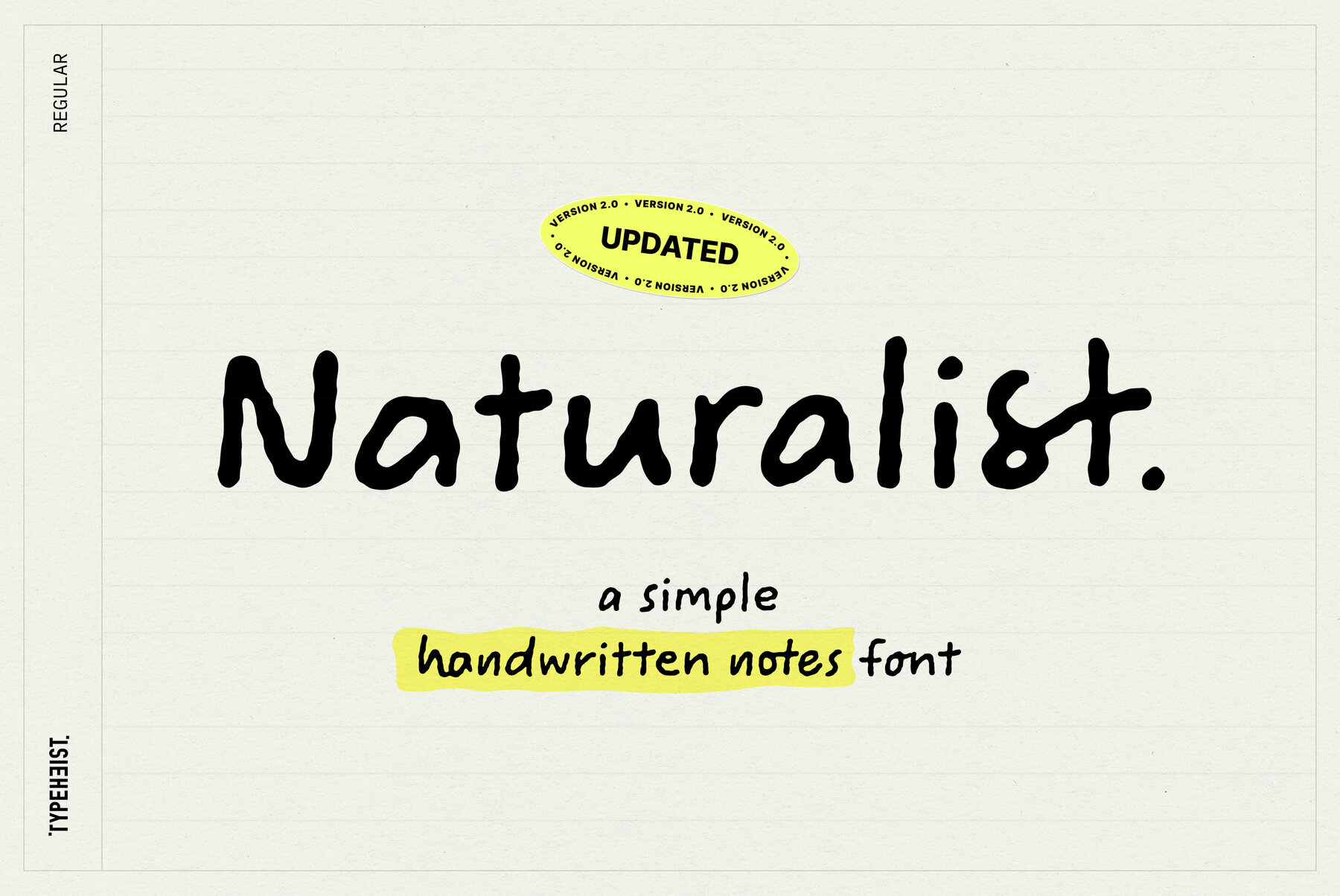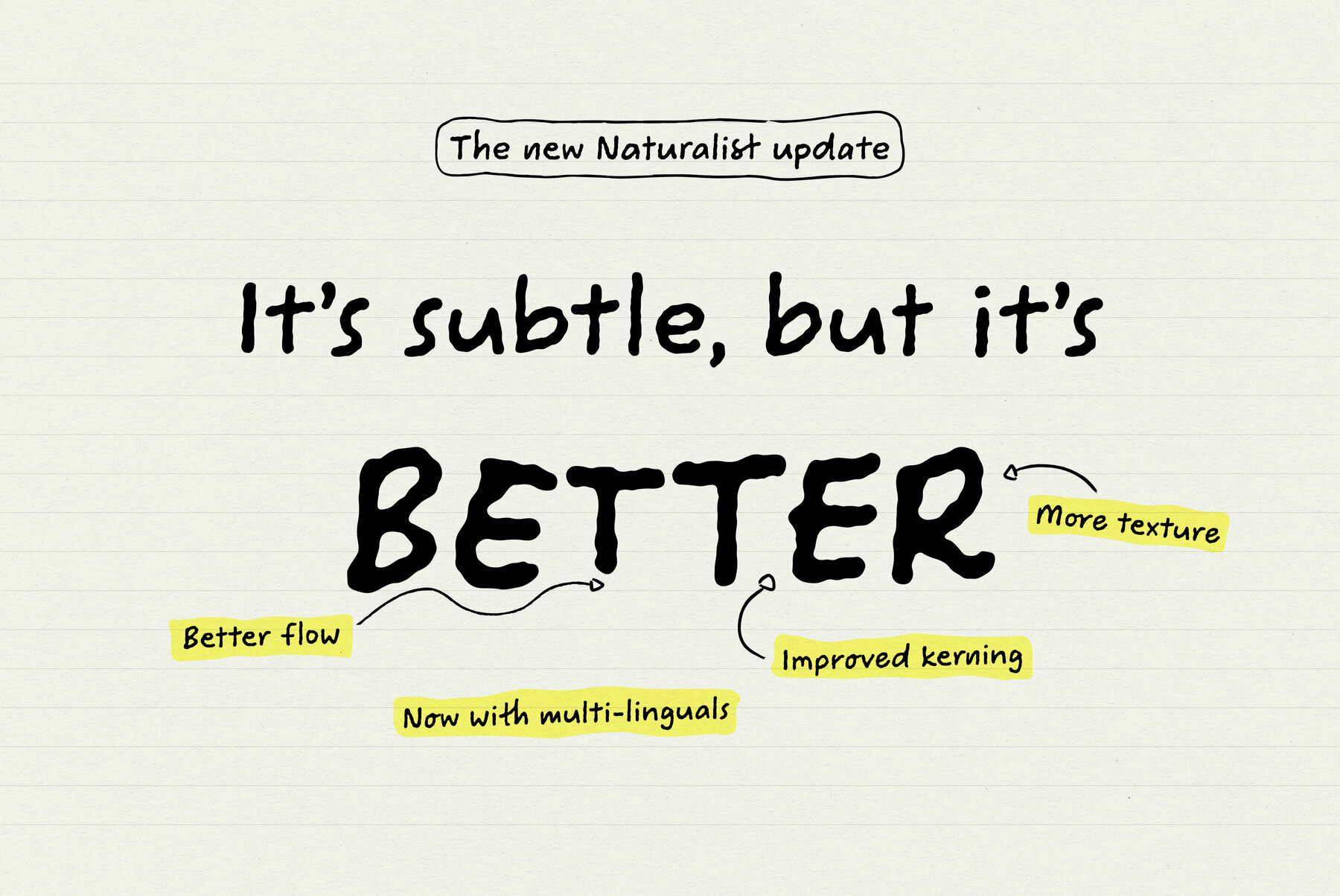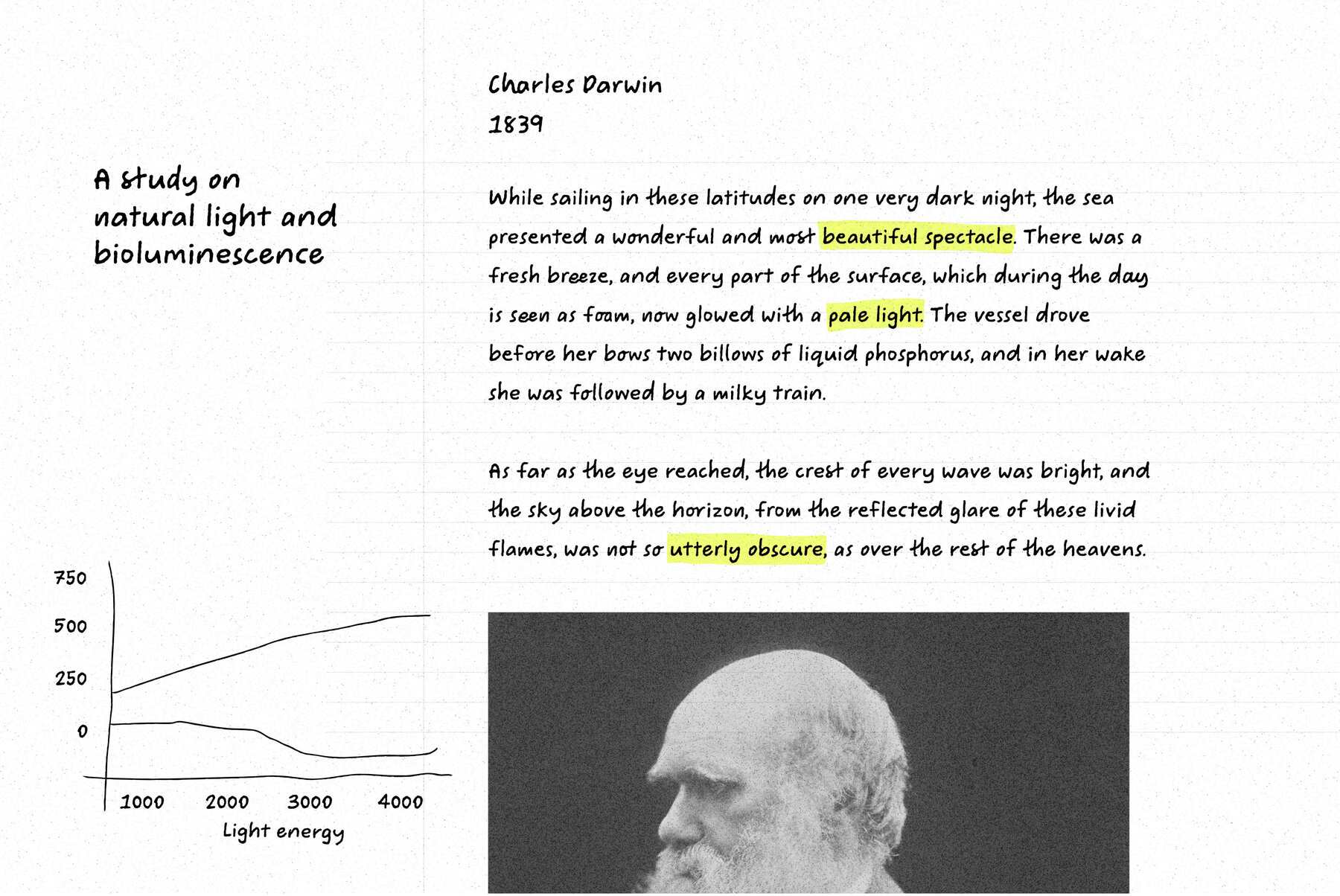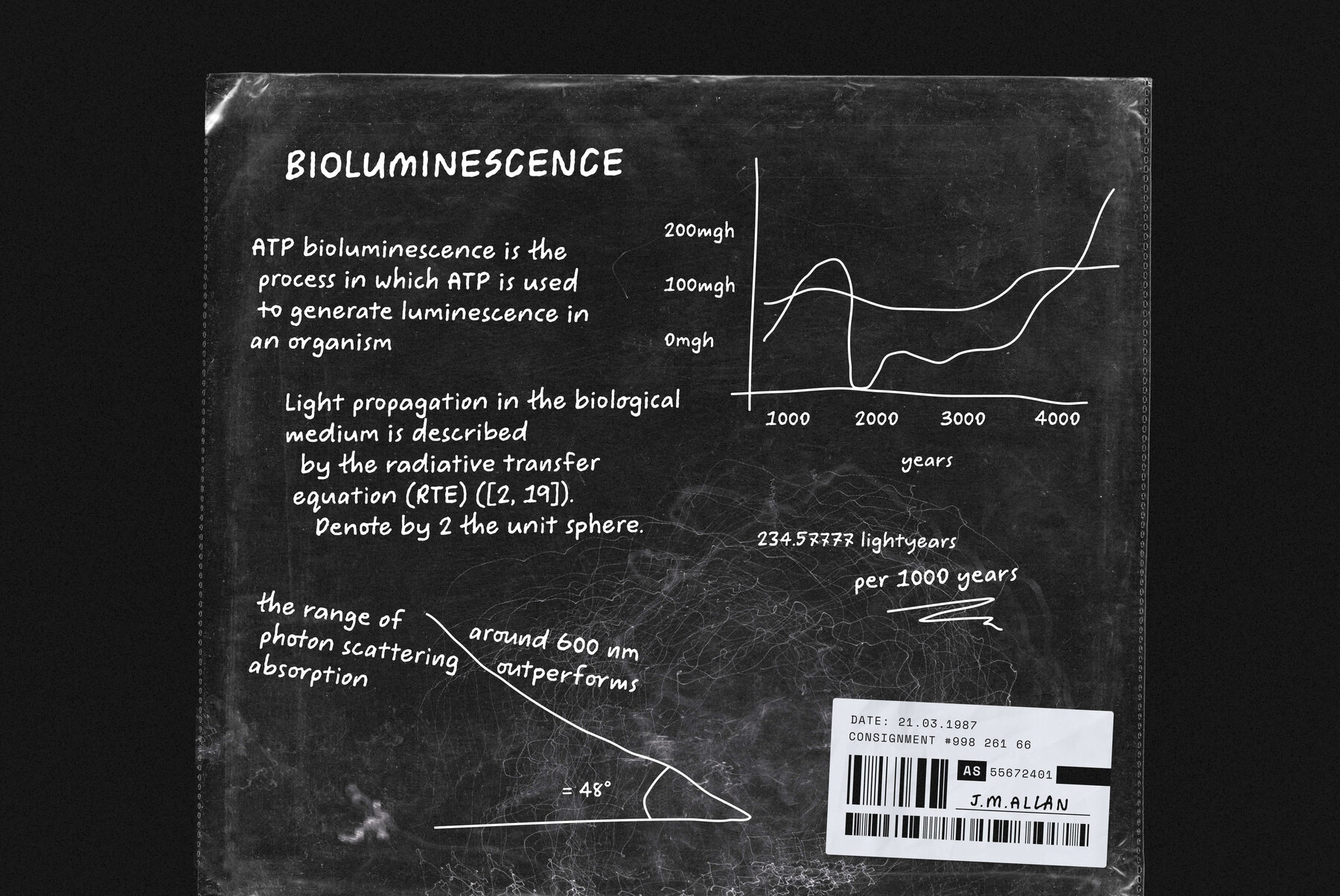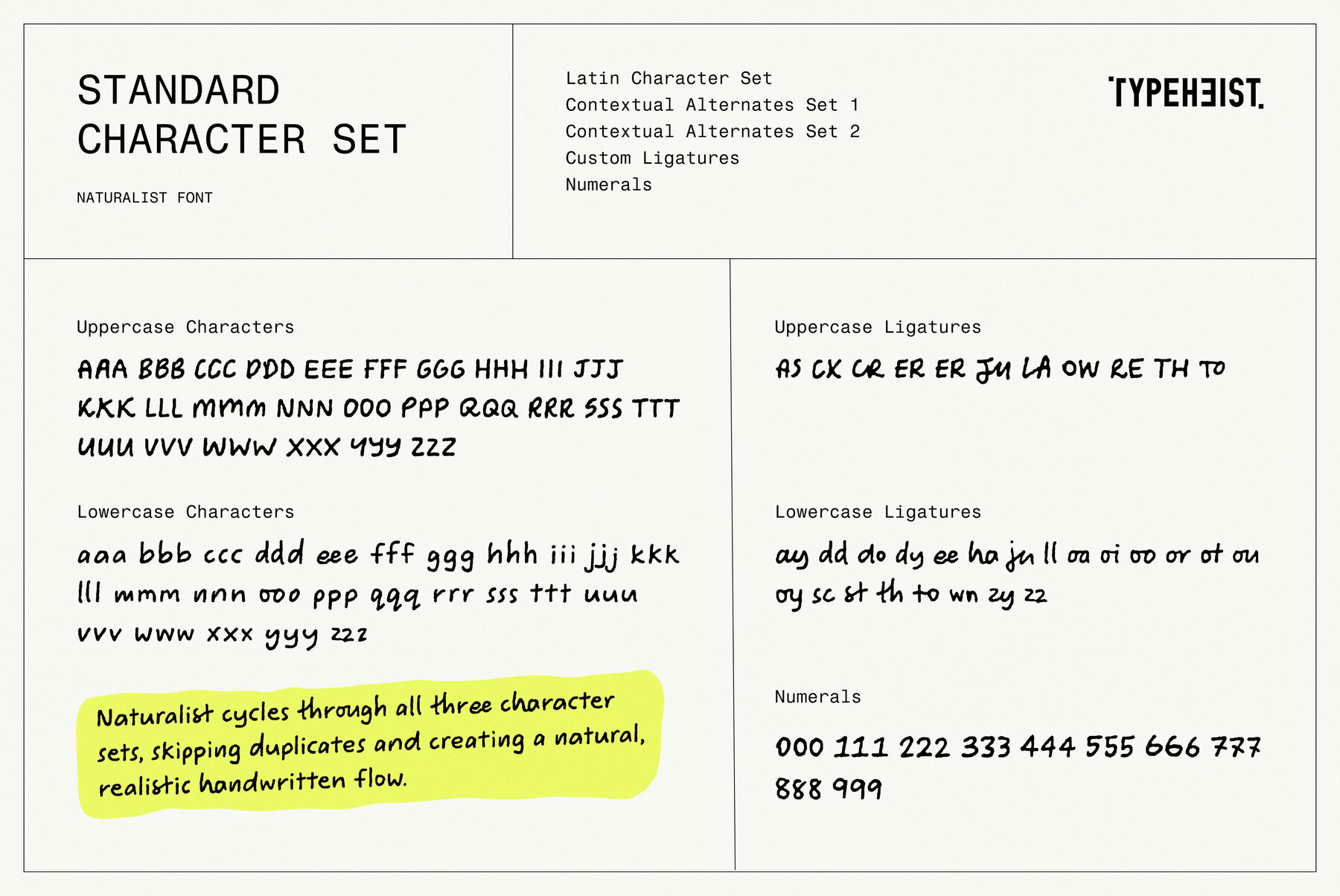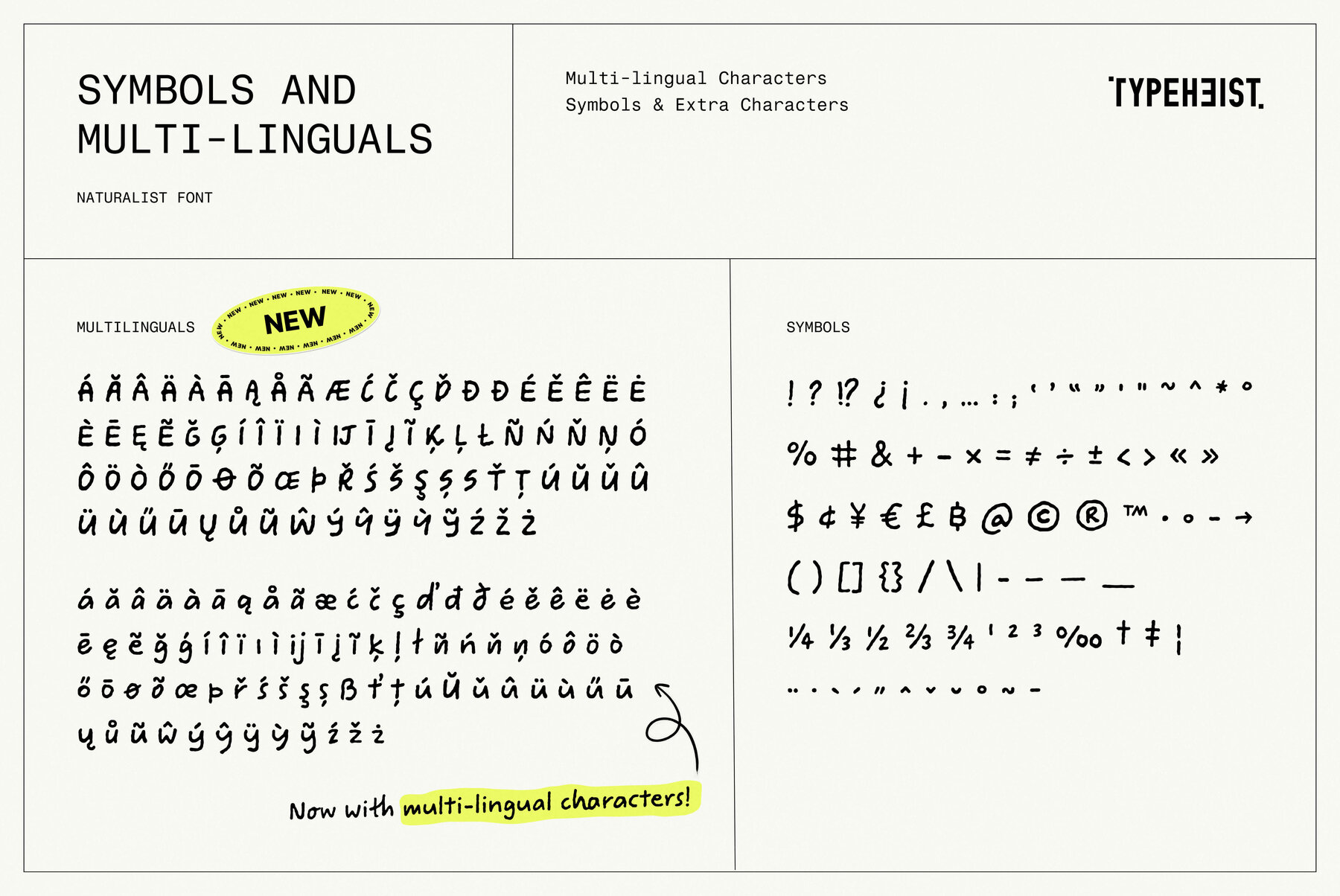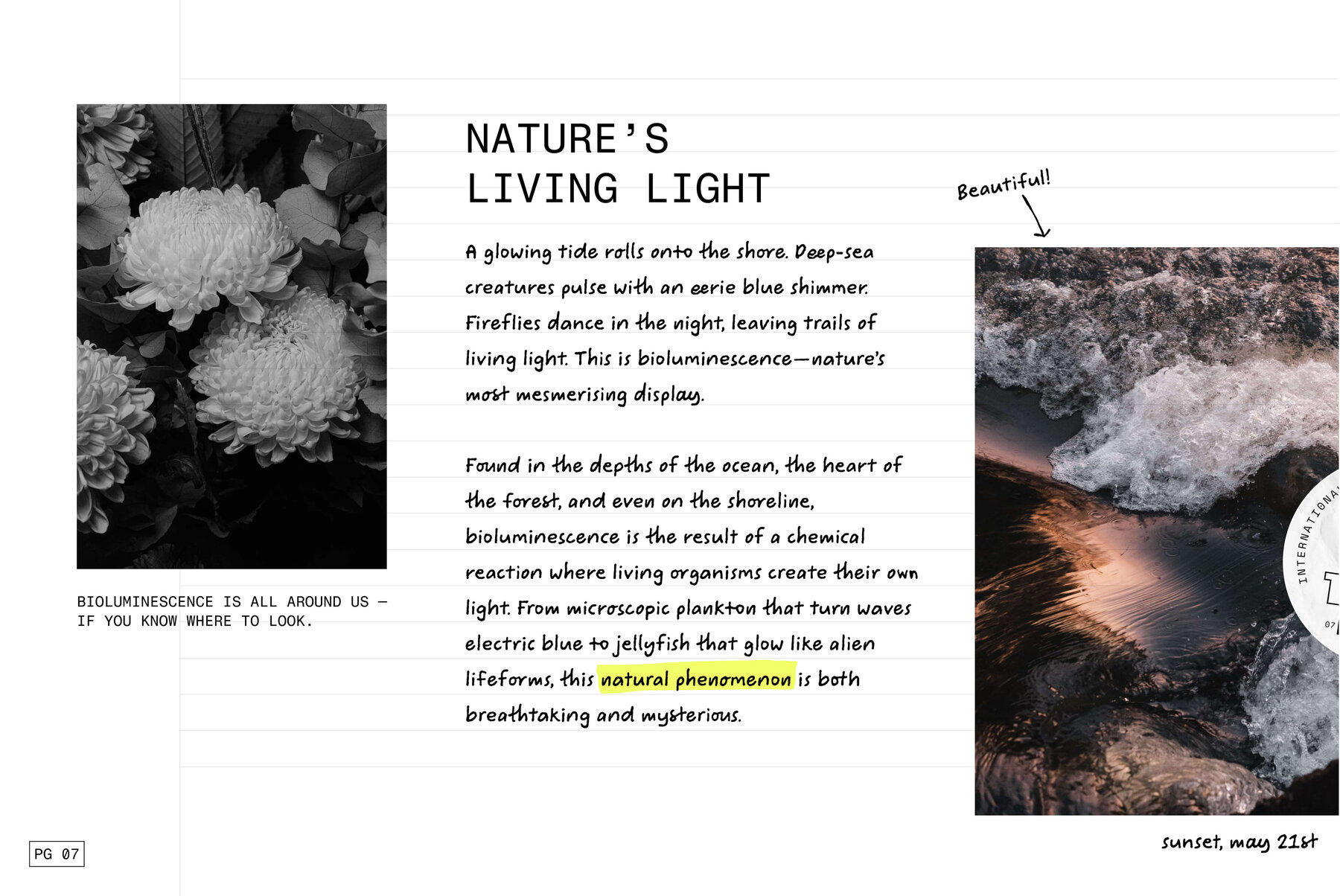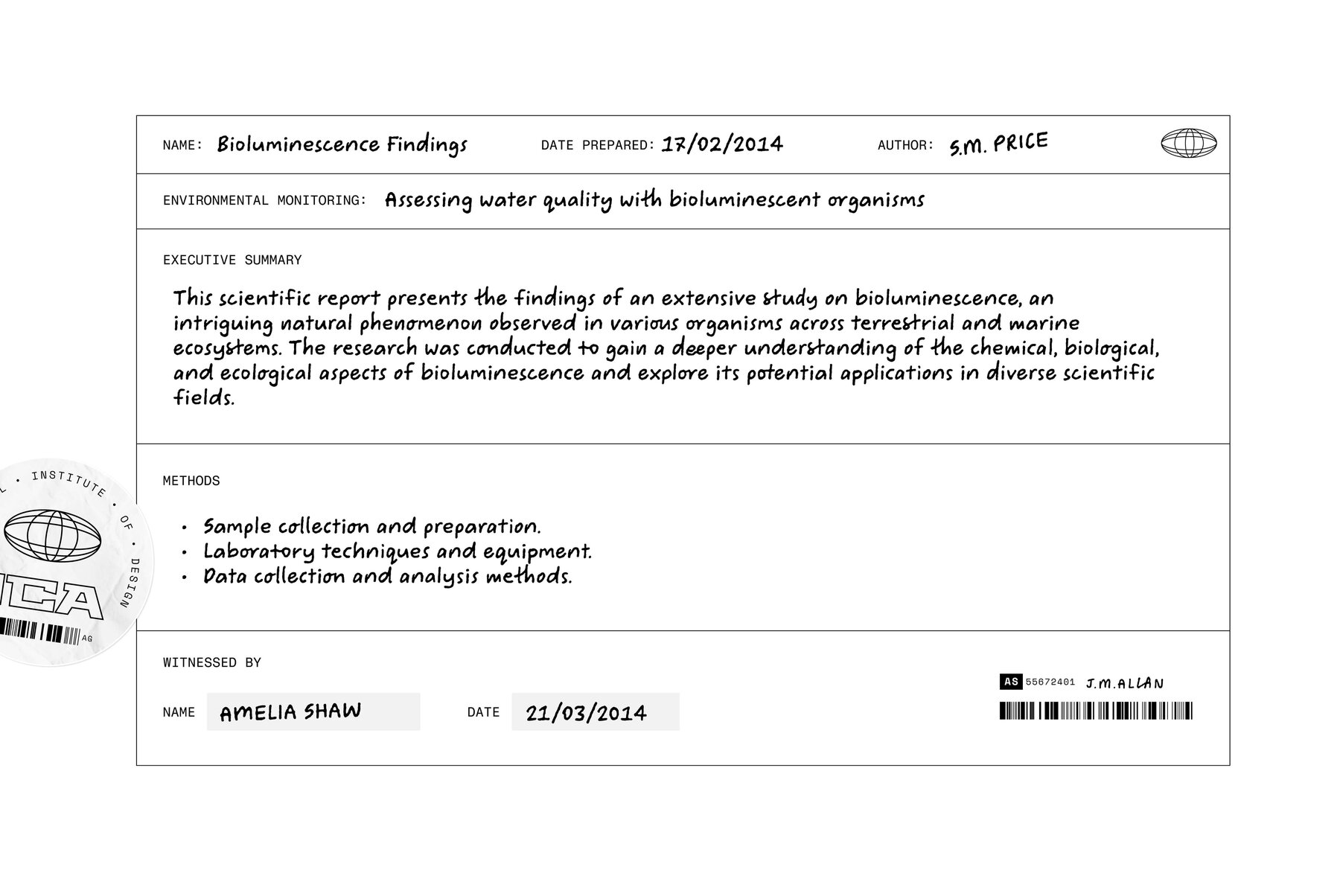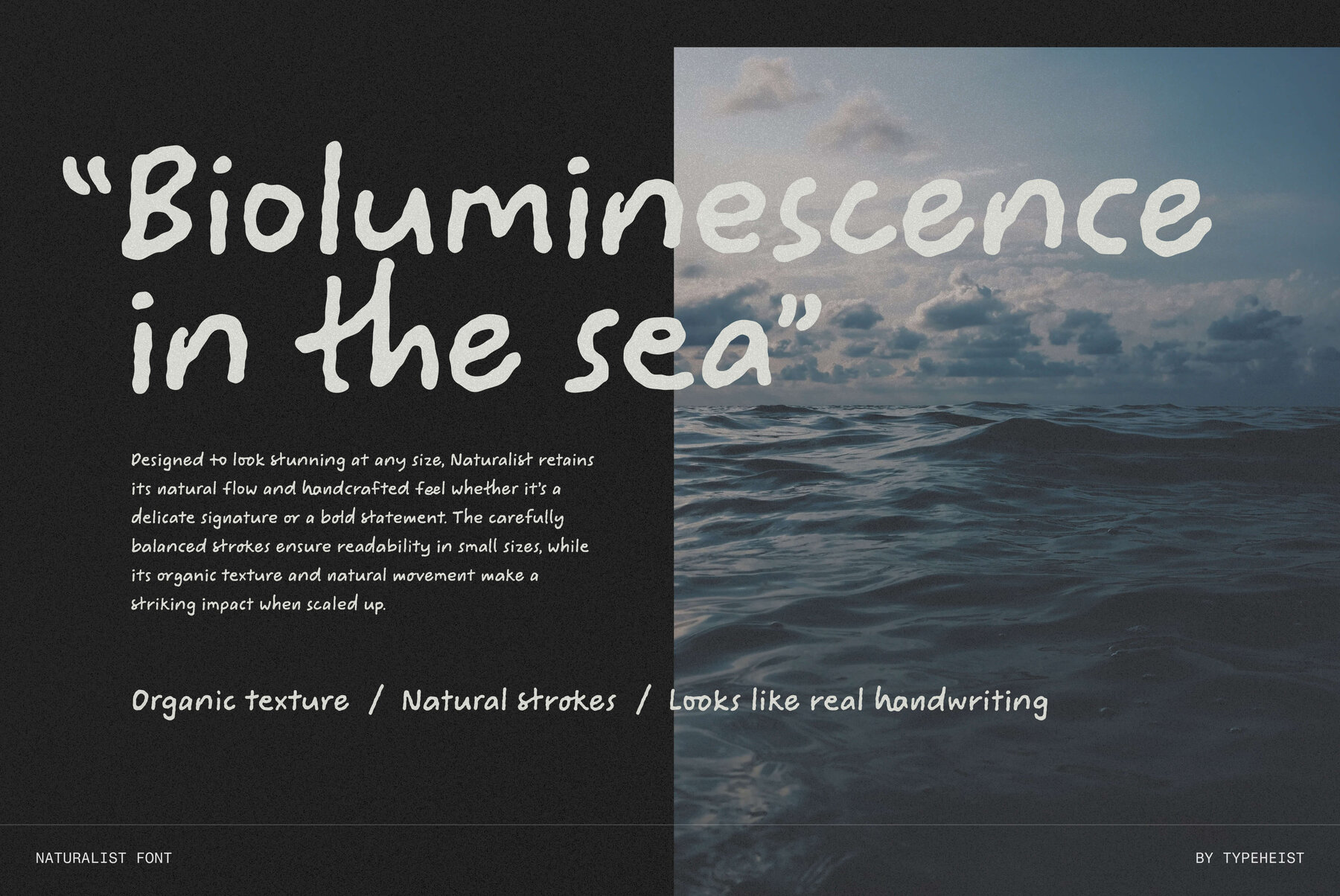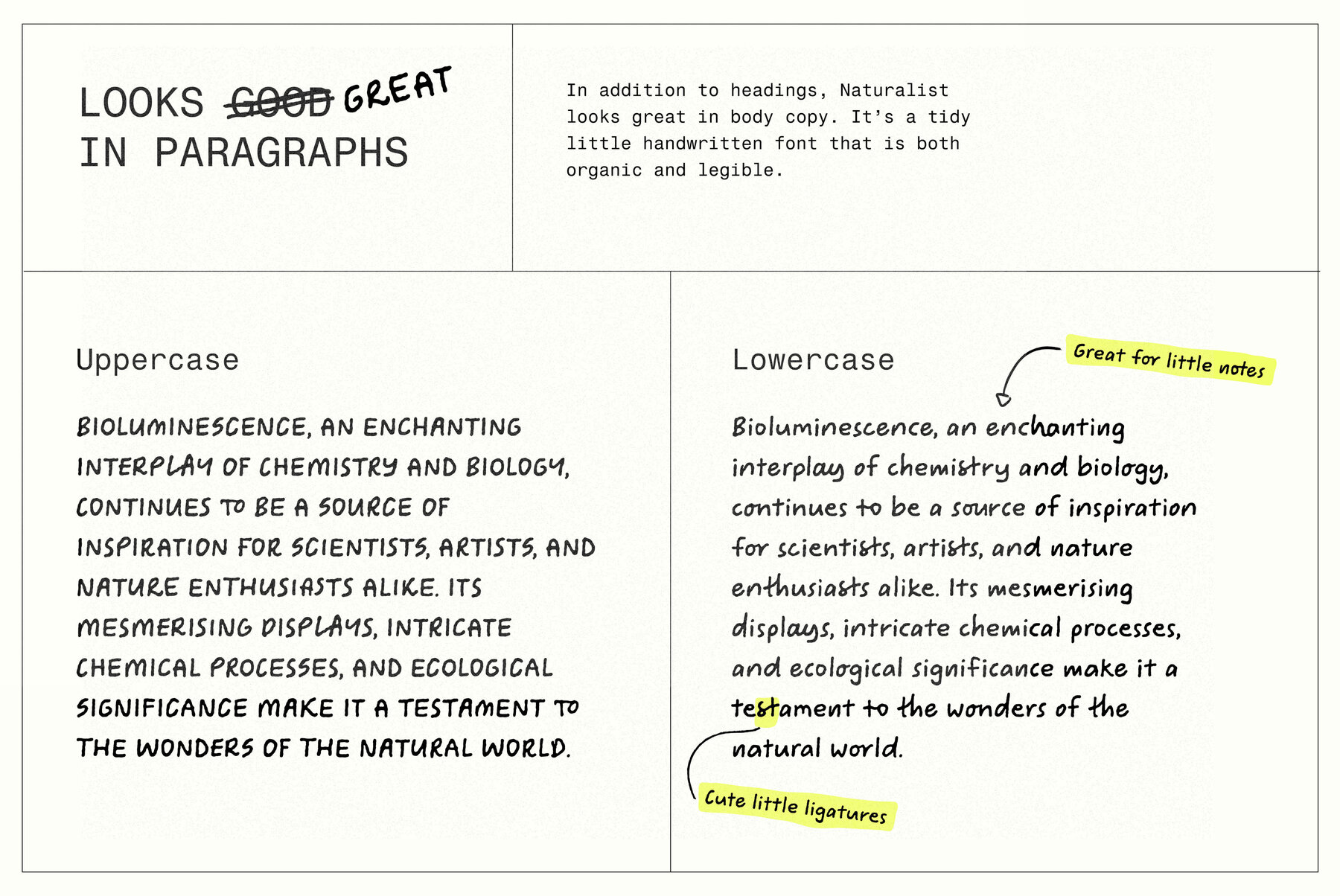
Naturalist Font
Naturalist Regular
Take your notes from bland to brilliant with this simple handwritten notes font. Introducing "Naturalist", a bookish handwriting font that captures the essence of your most spirited study sessions. Its printed, handwritten style, organic texture and natural strokes gives each character an authentic, handwritten feel - as though the words were penned on the very paper you hold. Why is it special? In additional to its custom ligatures, Naturalist includes 2x sets of contextual alternates for each A-Z and 0-9 characters. This means one of the three available characters are selected randomly when double letters are typed. Whether you aim to capture the nostalgic essence of your old school books and study notes or bring a touch of authenticity to complex maths and science manuscripts, Naturalist is your intellectual accomplice.